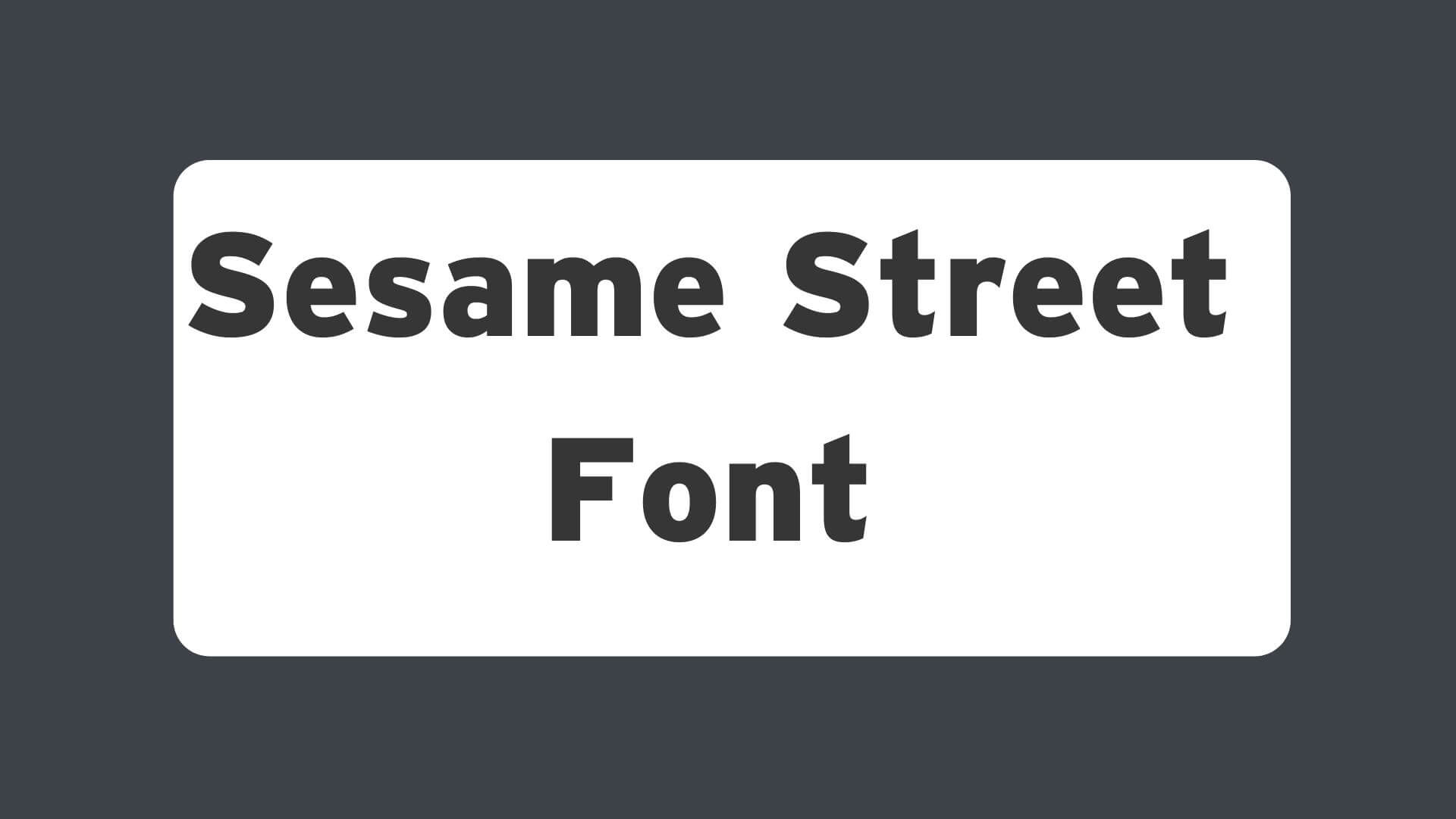
Sesame Street Font Family is a sans-serif marvel born from the iconic logo of America’s beloved TV series, Sesame Street. This eye-catching font first hit the scene on November 10, 1969. Imagine the stories you’ll tell with letters that capture the fun and spirit of a show that’s warmed hearts since its debut.
The original typeface that has been used in the logo of this typeface is Interstate Font and this font was designed by the famous font designer namely  Tobias Frere-Jones.
Sesame Street Font